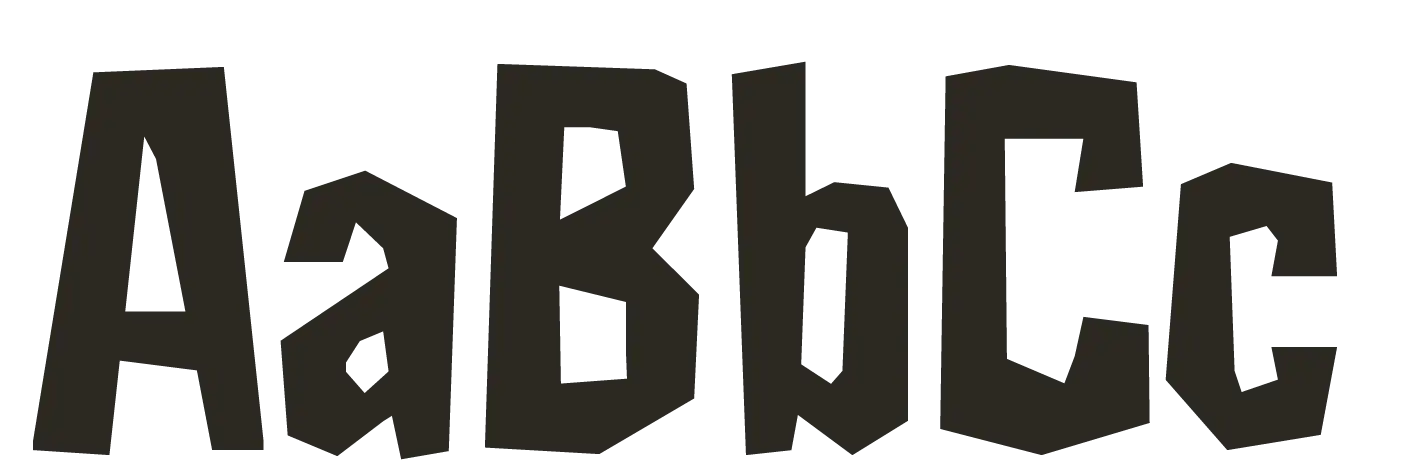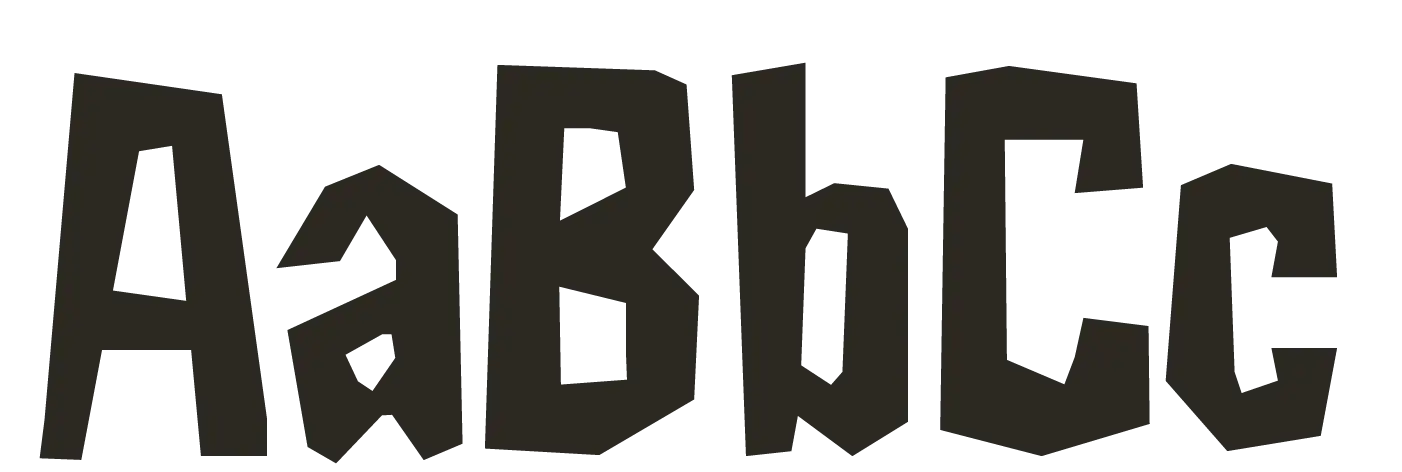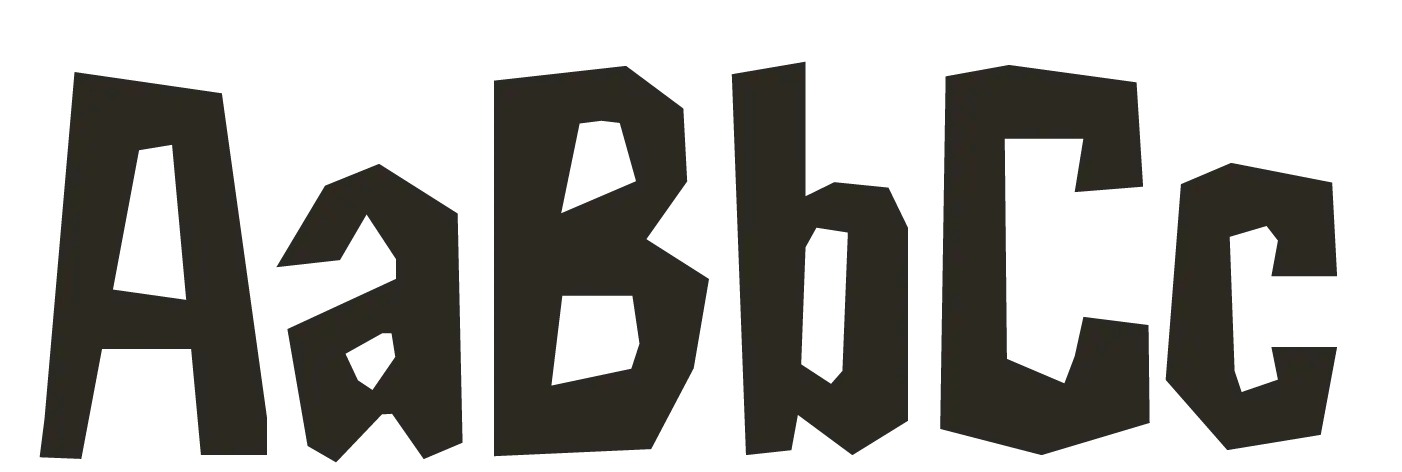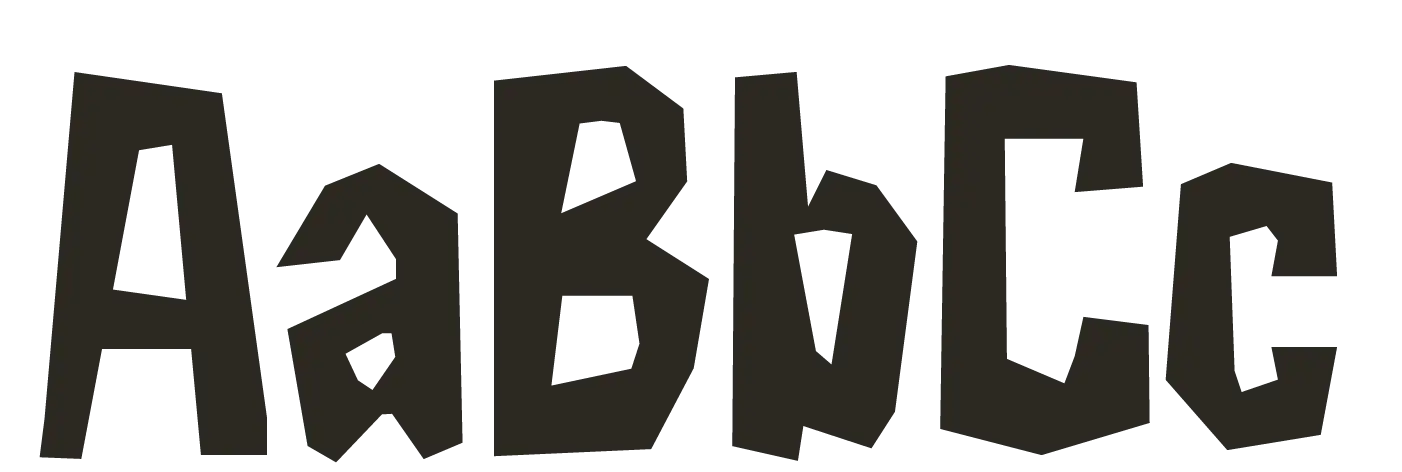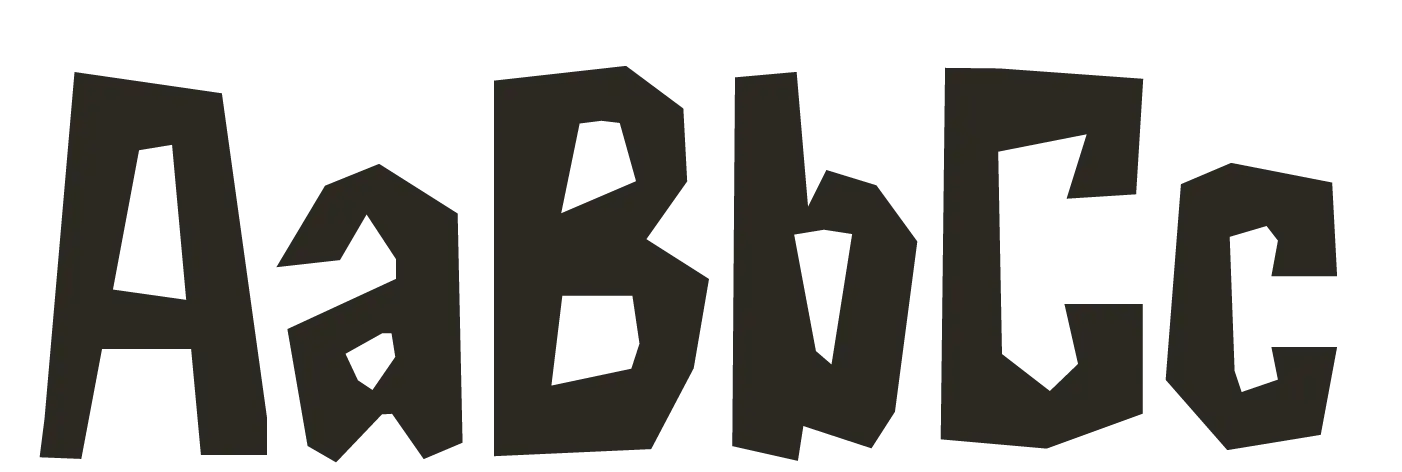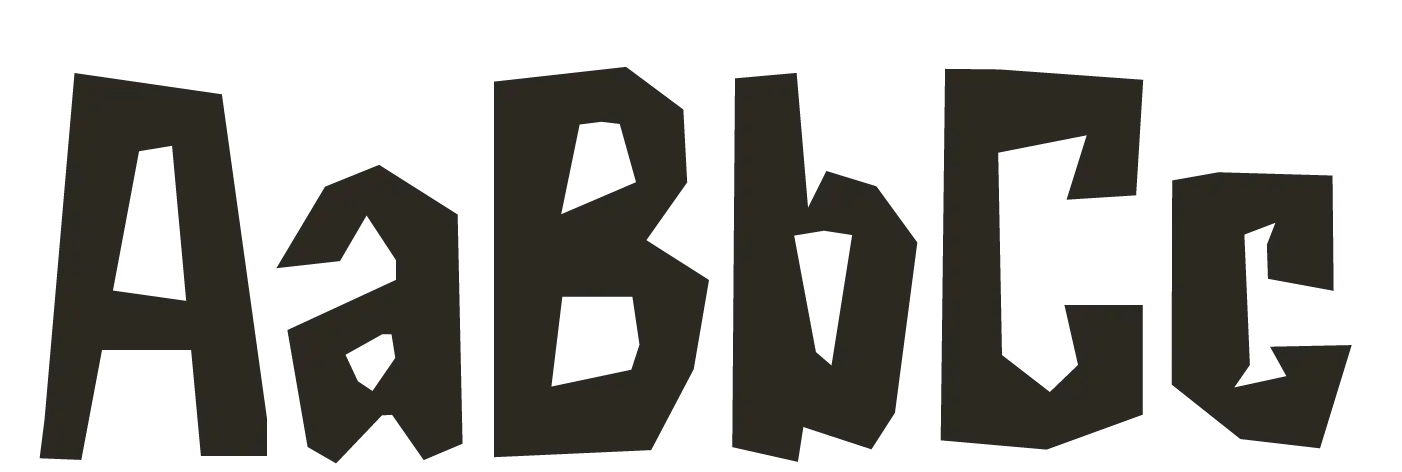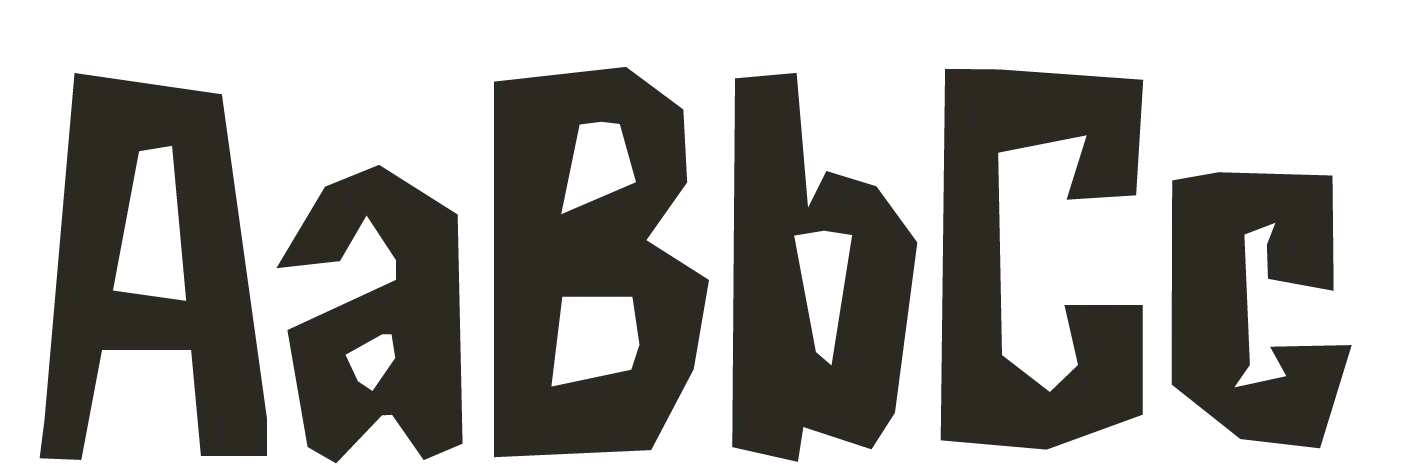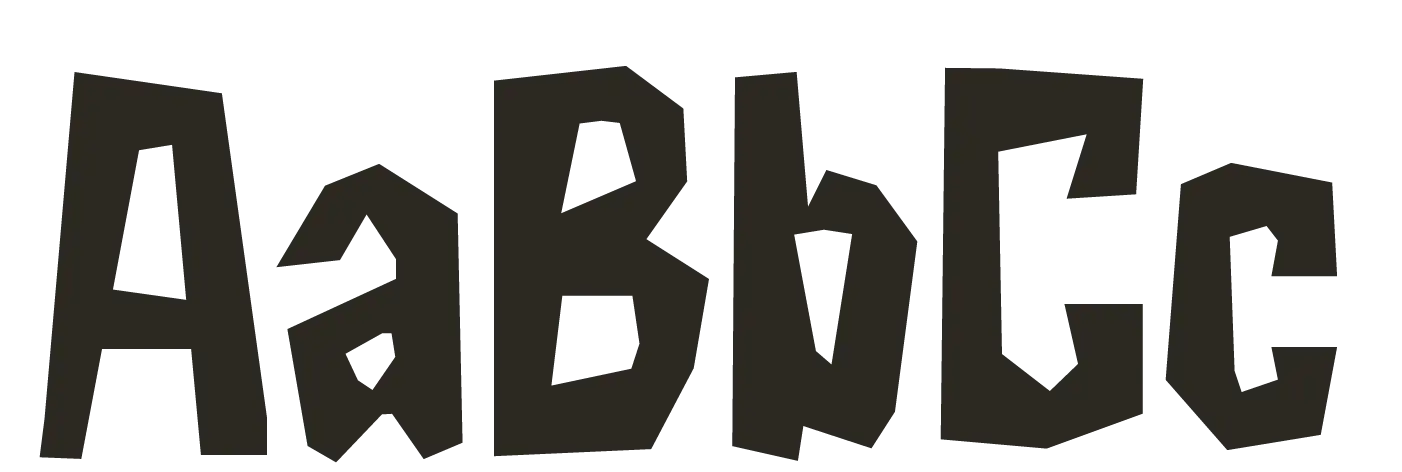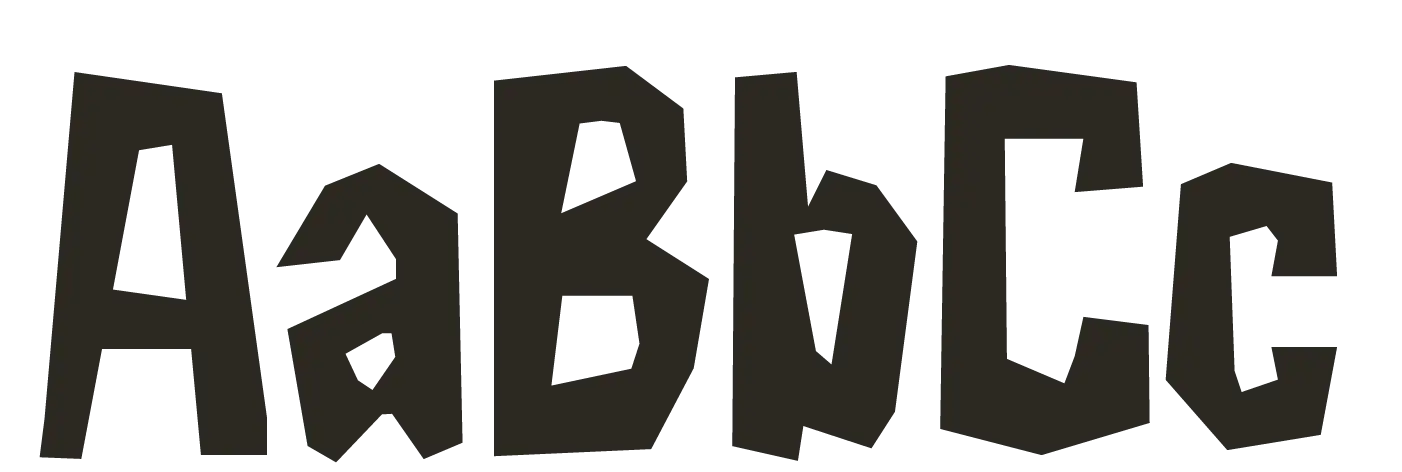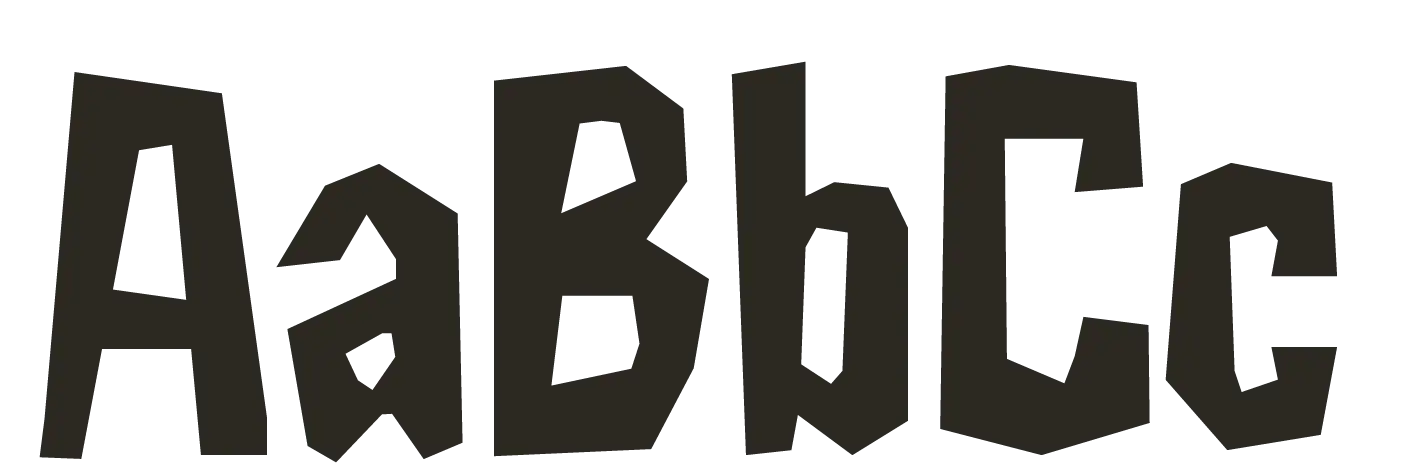
Sliza
This is the display font that channels the bold, mid-century brilliance of Saul Bass. Forget rigid geometry—Sliza is built on the raw, dynamic energy of hand-cut paper and collage. Its deliberately broken angles and informal edges deliver maximum impact and a genuine vintage feel.
Alternate glyphs
Expressive Ligatures
Sliza features custom ligatures designed to enhance specific letter combinations. These forms introduce sharper connections and unexpected shapes that reinforce the font’s cut-and-paste character, adding tension and visual interest without compromising clarity.